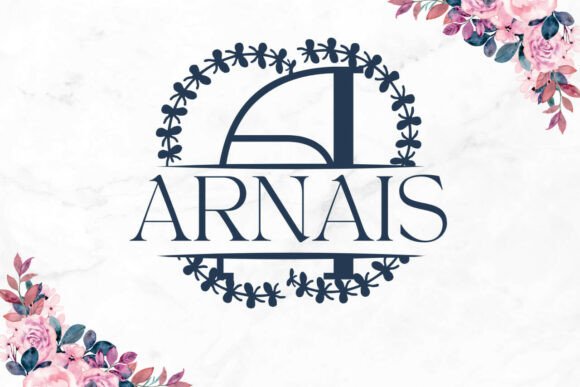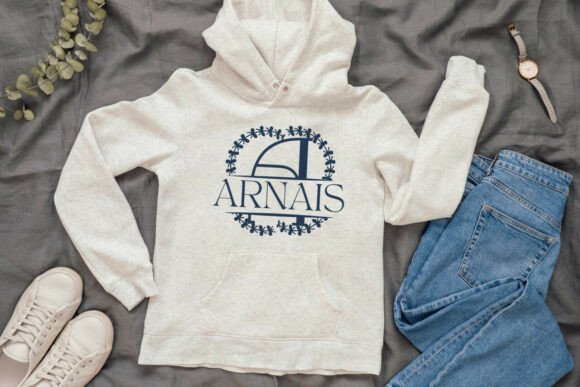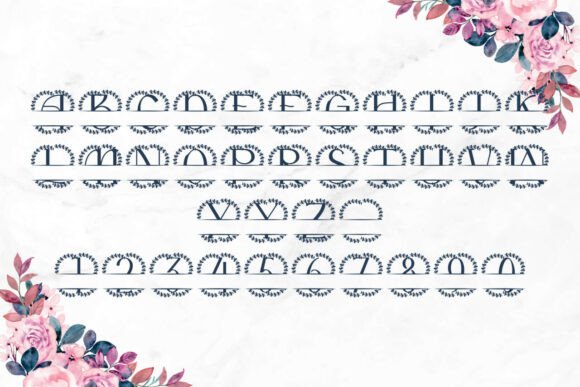
Transforming Initials into Timeless Designs with Ease
Do you remember the moment you received a beautifully crafted monogrammed gift or a customized keepsake that truly felt special? For many of us, it’s the thoughtful touch that makes a lasting impression. That’s exactly what the Caravine Split Monogram Font aims to achieve – turning initials into stunning nameplates in seconds.
This elegant font is designed to make customizing nameplates a breeze. With its clear letterforms and balanced spacing, results look polished with minimal effort. Whether you’re a seasoned designer or a DIY enthusiast, the Caravine Split Monogram Font is a valuable addition to your toolkit. Its versatility and smooth curves make it perfect for a wide range of projects, from wedding gifts and family signs to door hangers and ornaments.
Caravine Split Monogram Font Key Features
- Font Family: A unique, modern monogram font designed for personalization and customization.
- Unique Characteristics: The font features a split monogram design, allowing for easy customization and personalization of names, initials, and logos.
Designer Review: Caravine Split Monogram Font
Overall, I think the Caravine Split Monogram Font has some great qualities that make it a fun and unique addition to any design project. ✨
The split monogram style of the font is certainly eye-catching, and it’s perfect for creating custom logos or branding elements that require a touch of elegance and sophistication. ✨ The font’s subtle curves and delicate lines make it a great choice for designing invitations, wedding stationery, or any other project that requires a touch of whimsy and romance. ✨
- The unique split monogram style that adds a touch of elegance and sophistication.
- The subtle curves and delicate lines that make it perfect for designing invitations and wedding stationery.
- The font’s versatility, making it suitable for a wide range of design projects.
- The font may not be the best choice for projects that require a bold or dramatic font, as it’s relatively delicate and subtle.
- The split monogram style may not be suitable for projects that require a large amount of text, as it can be quite time-consuming to typeset.
- The font may not be as readable at small font sizes, so it’s best to use it for larger font sizes or headings.
Overall, I think the Caravine Split Monogram Font is a great addition to any designer’s toolkit, but it’s essential to understand its limitations and use it in the right context. With its unique style and versatility, it’s perfect for projects that require a touch of elegance and sophistication.
Use the Caravine Split Monogram Font to create stylish and elegant designs for invitations, weddings, and other special occasions.
Use the Caravine Split Monogram Font to create custom logos, branding materials, and other visual elements.
Use the Caravine Split Monogram Font to create professional and stylish presentations, reports, and documents.
Use the Caravine Split Monogram Font to add a touch of elegance and sophistication to your designs.
Logo design and branding
Special occasion invitations and announcements
Custom stationery and letterheads
What is the recommended font size for using the Caravine Split Monogram Font?
The Caravine Split Monogram Font is designed to be used at medium to large font sizes (around 24pt and above). Using the font at smaller sizes may compromise its legibility and aesthetic appeal. Experiment with different font sizes to find the optimal setting for your design project.